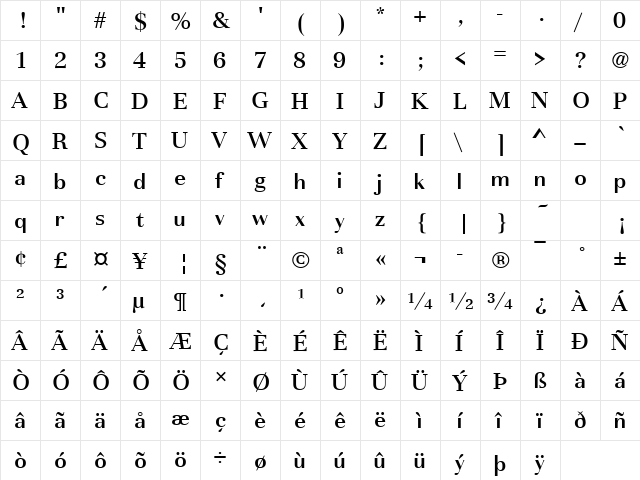
URWBassorahTMed Regular
URWBassorahTMed offers clean, dependable letterforms without strong stylistic allegiance, making it a practical choice for designers who need flexibility.